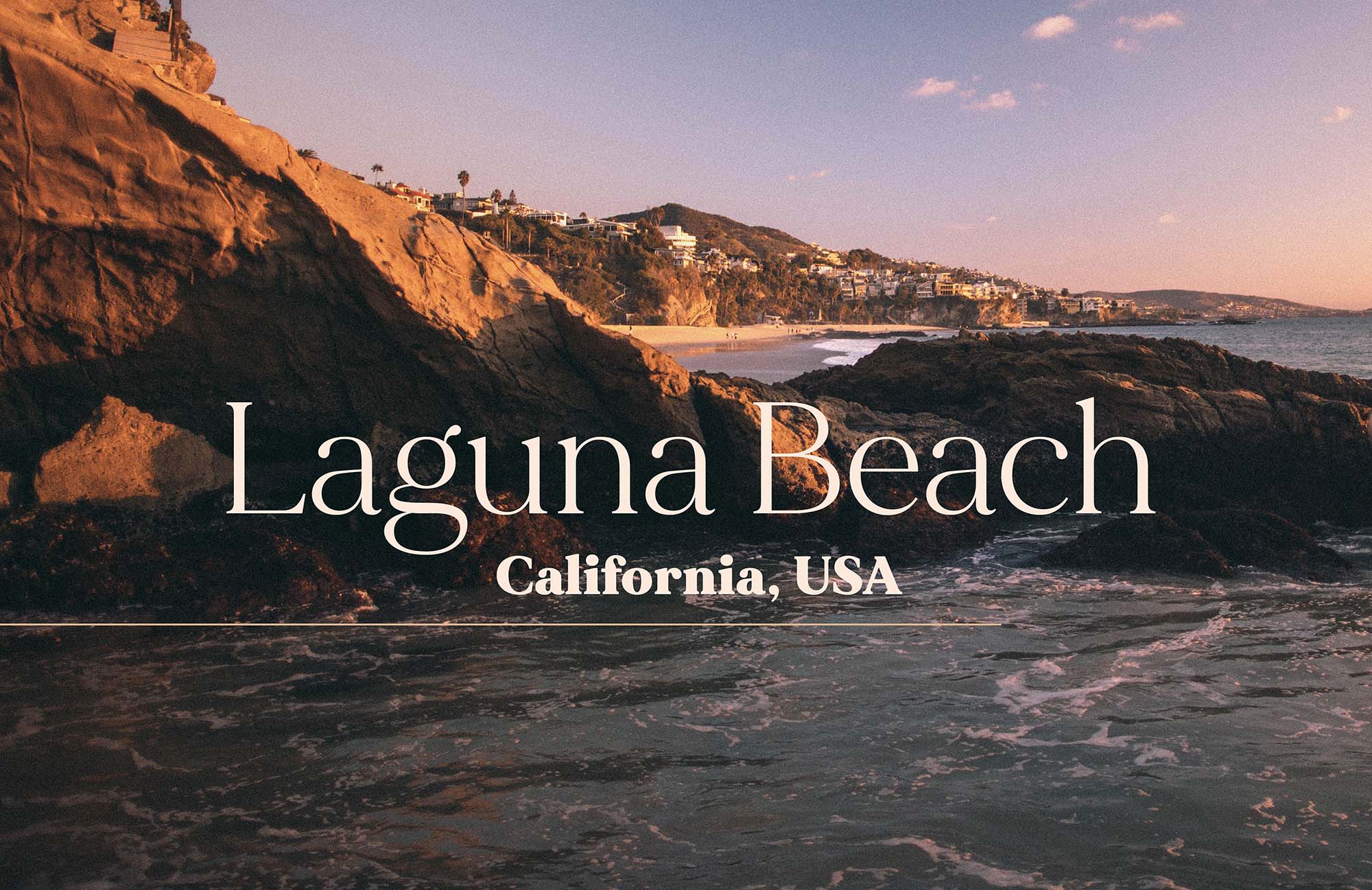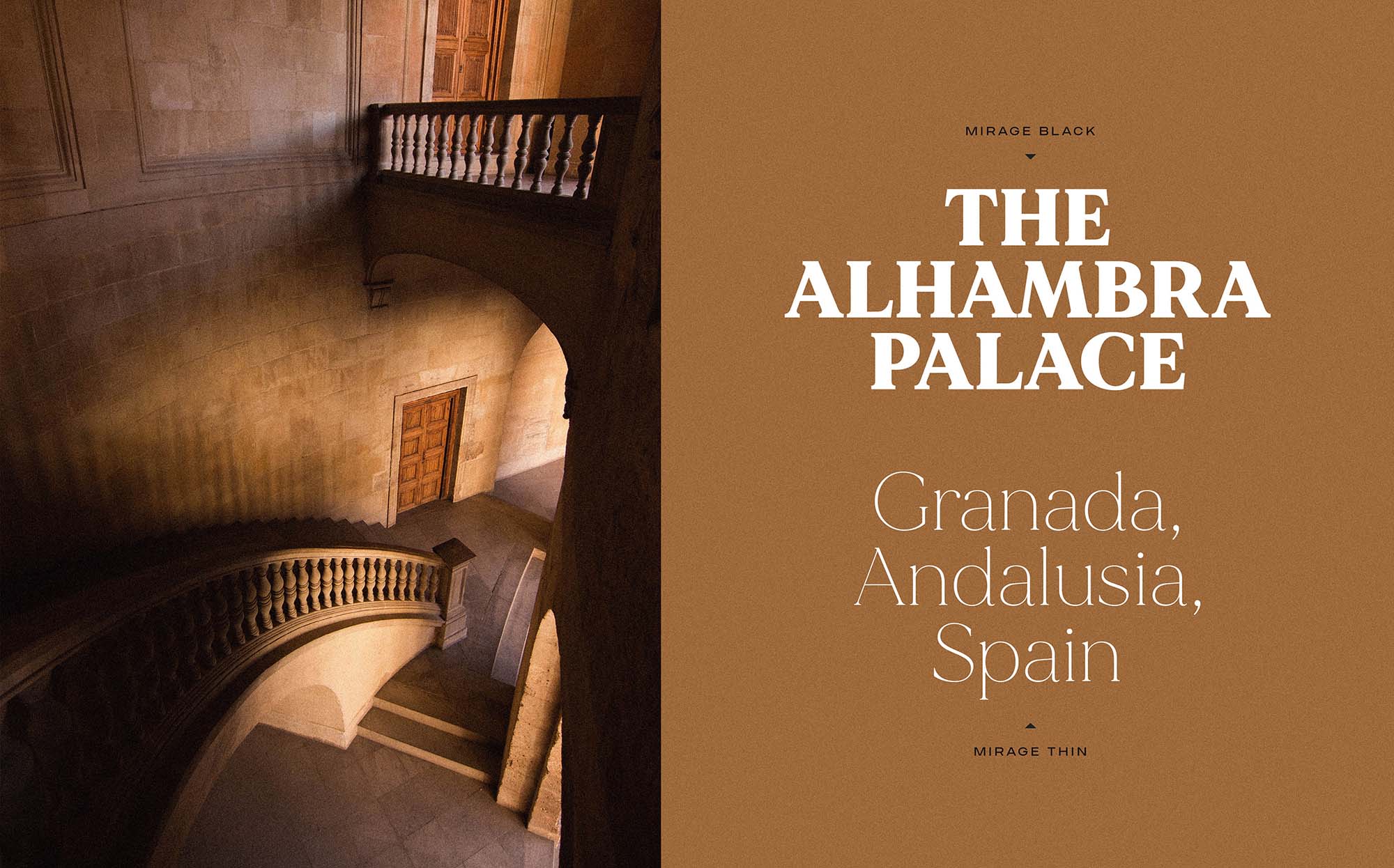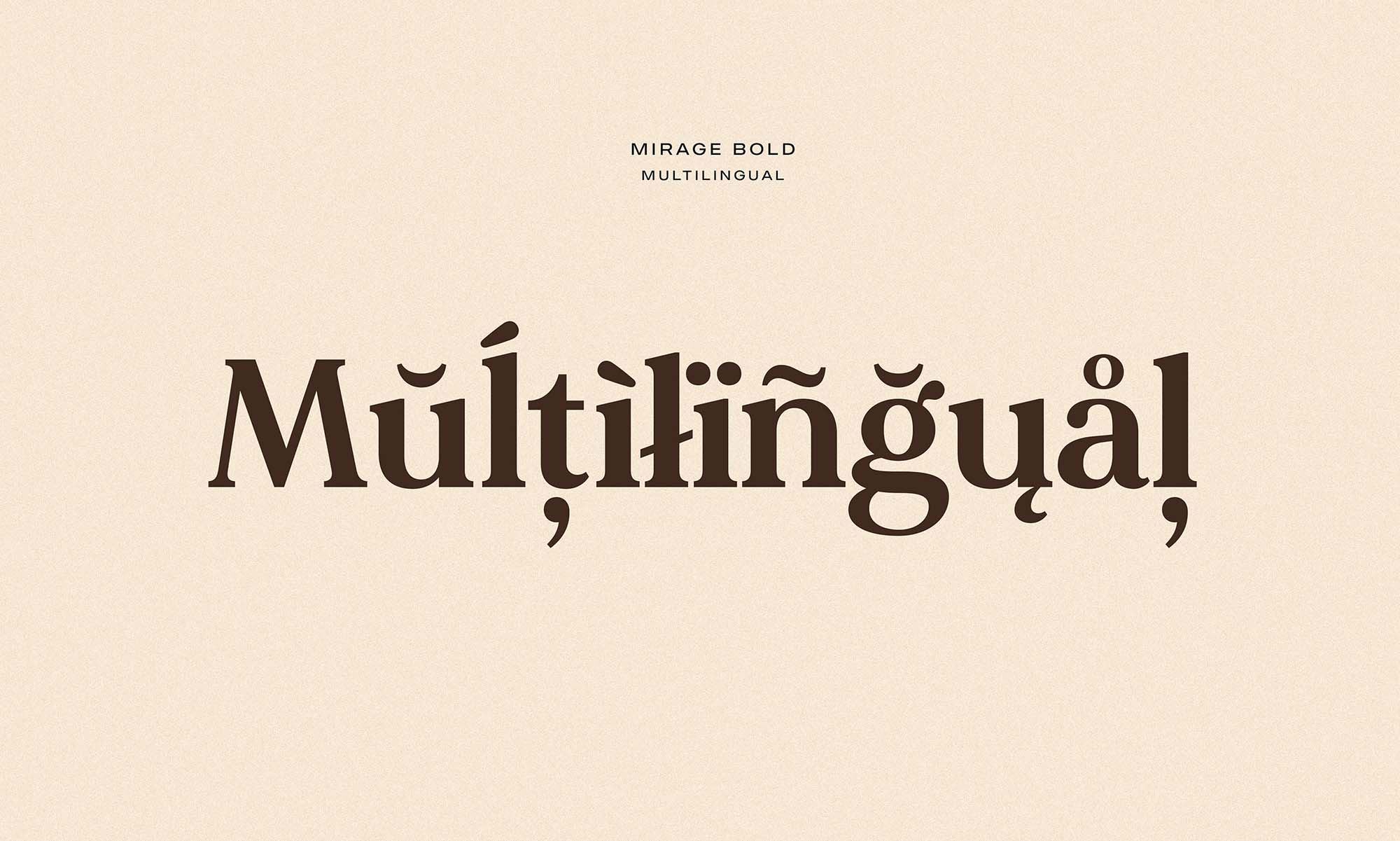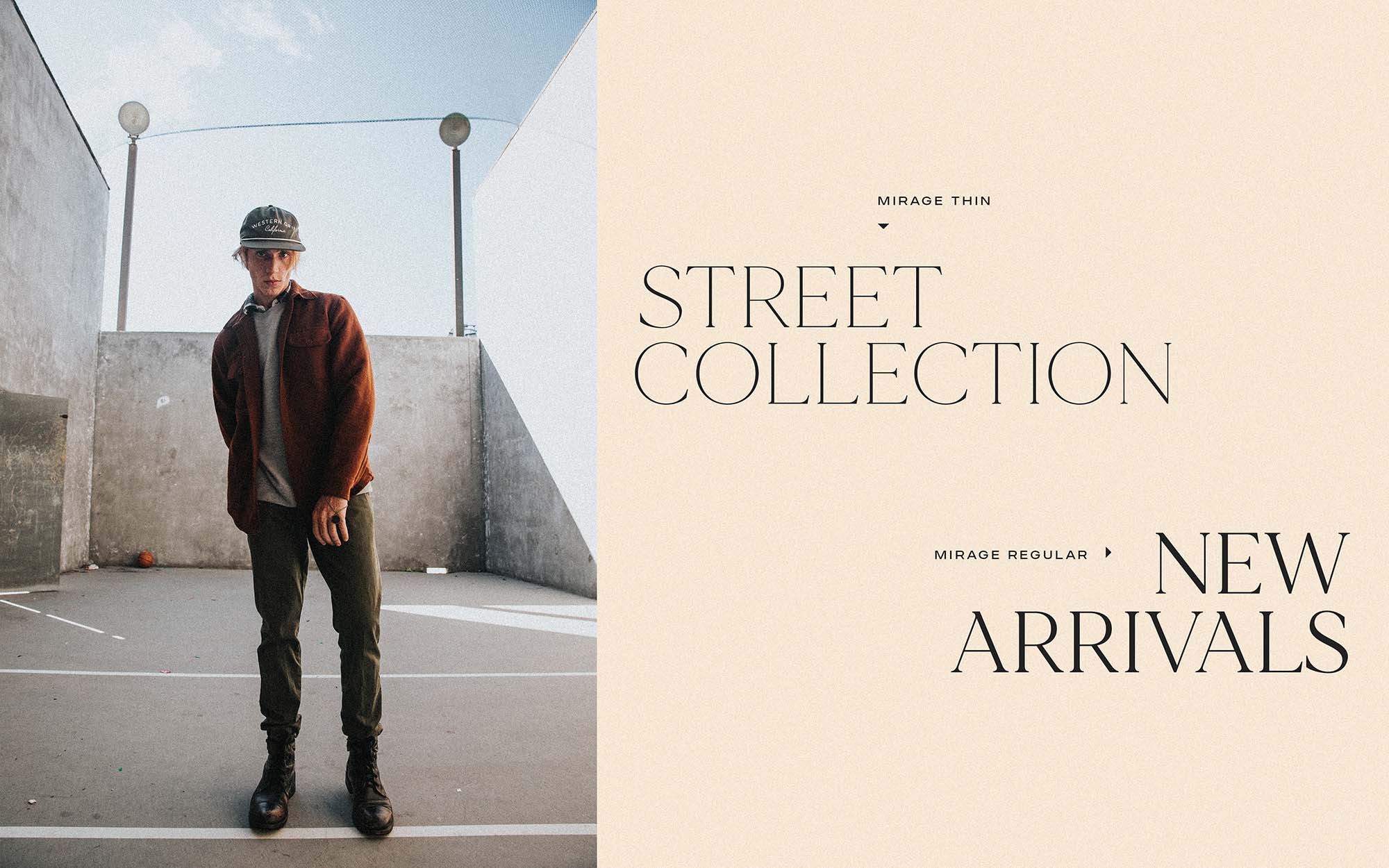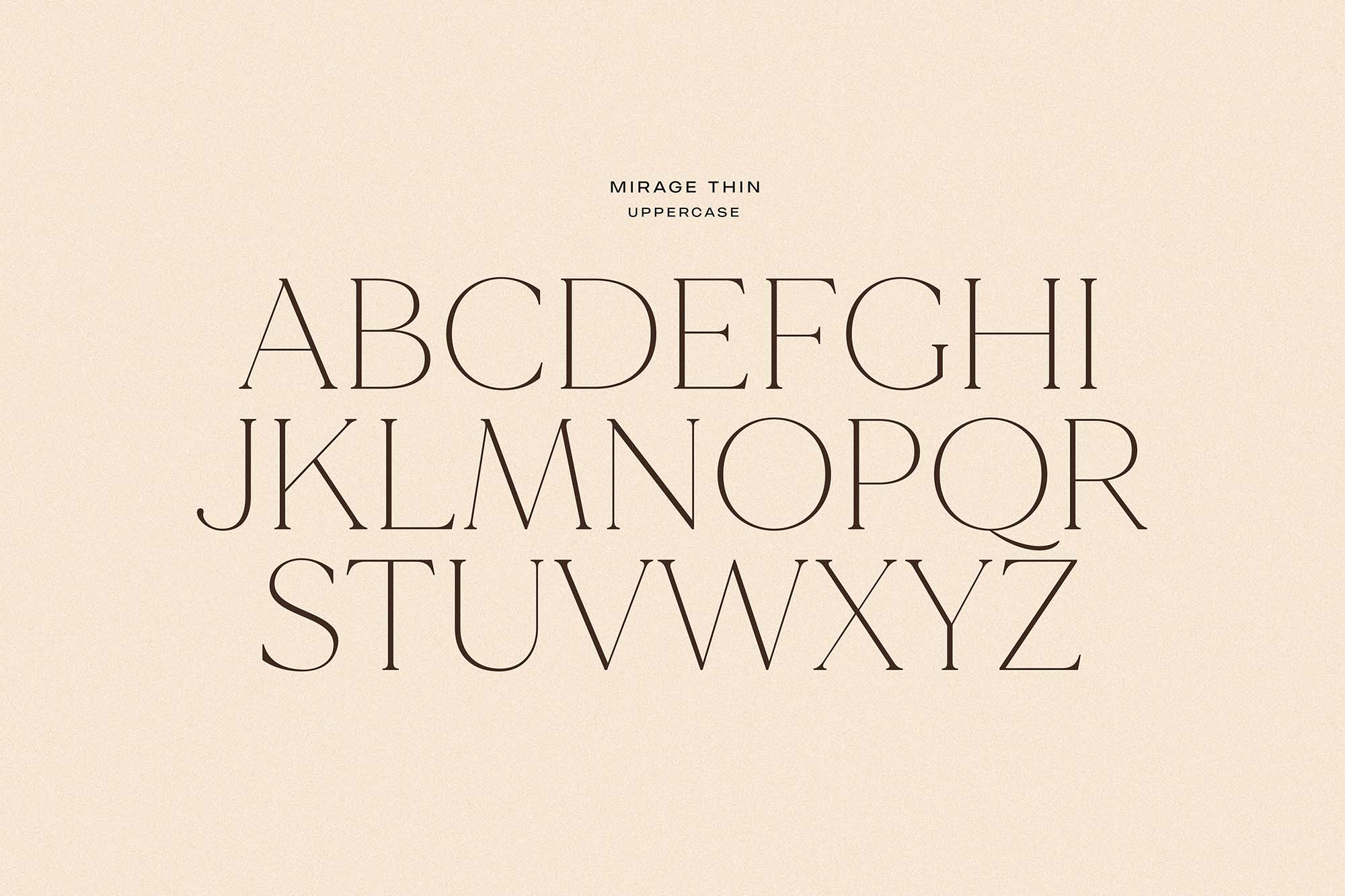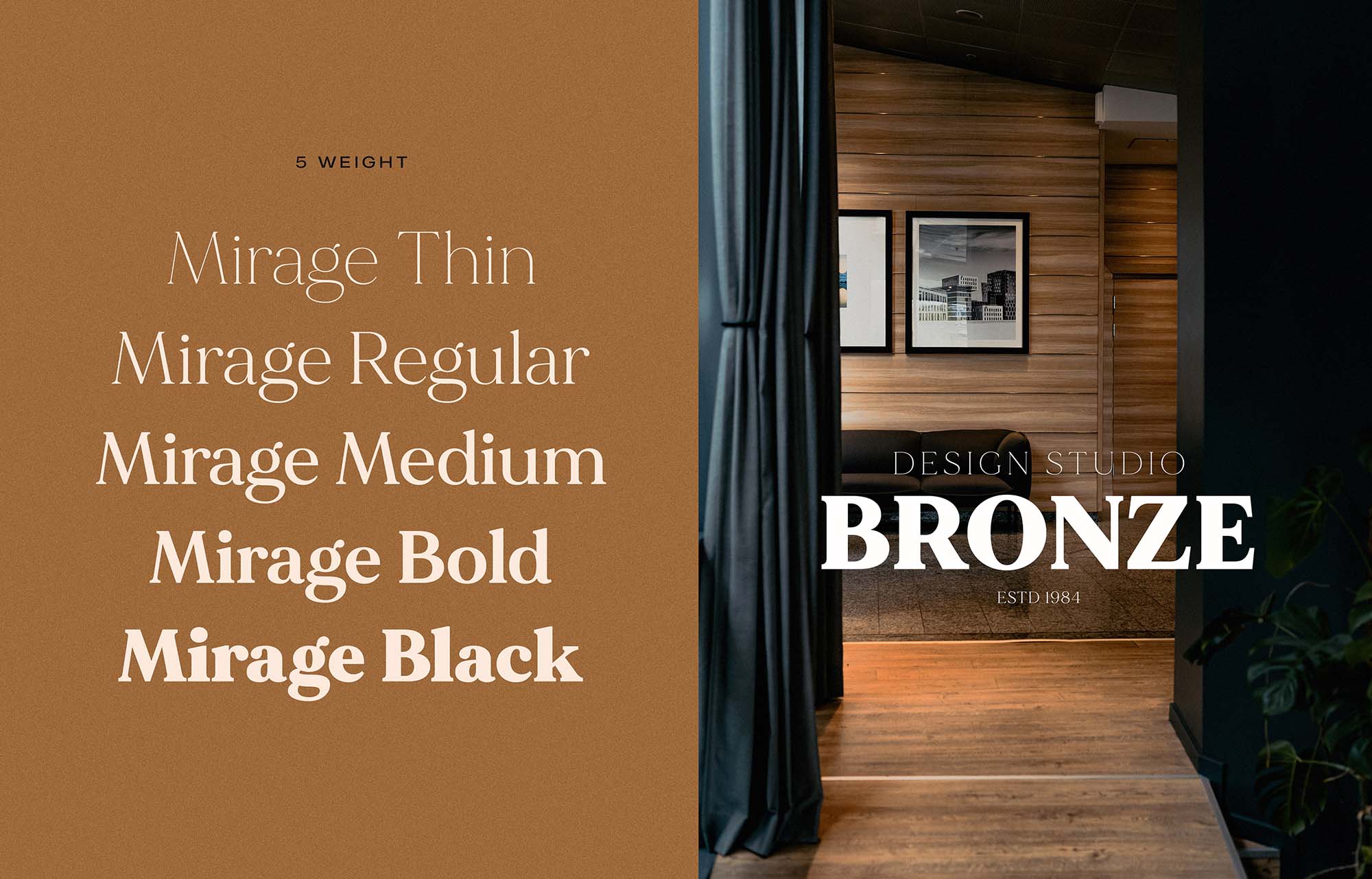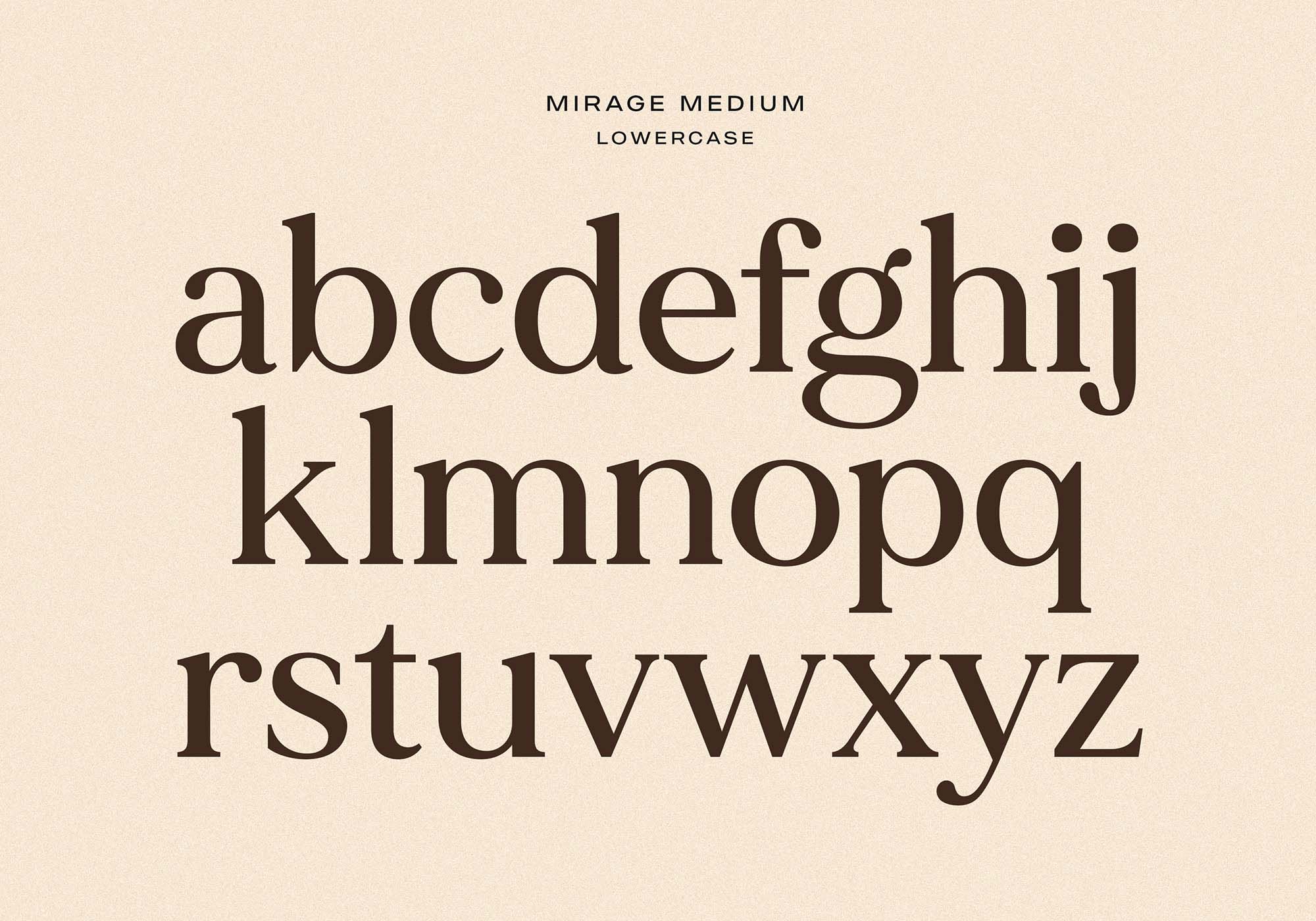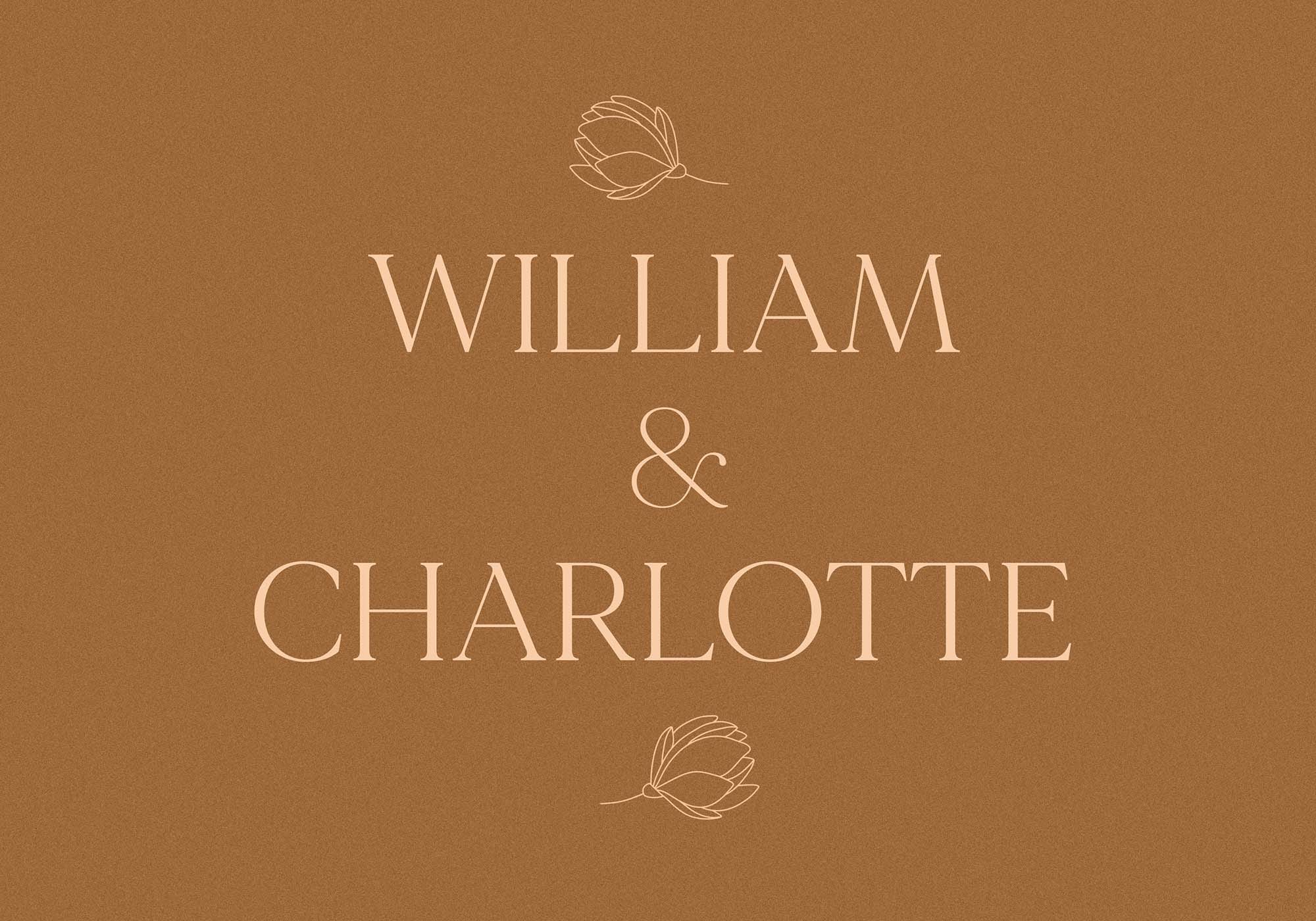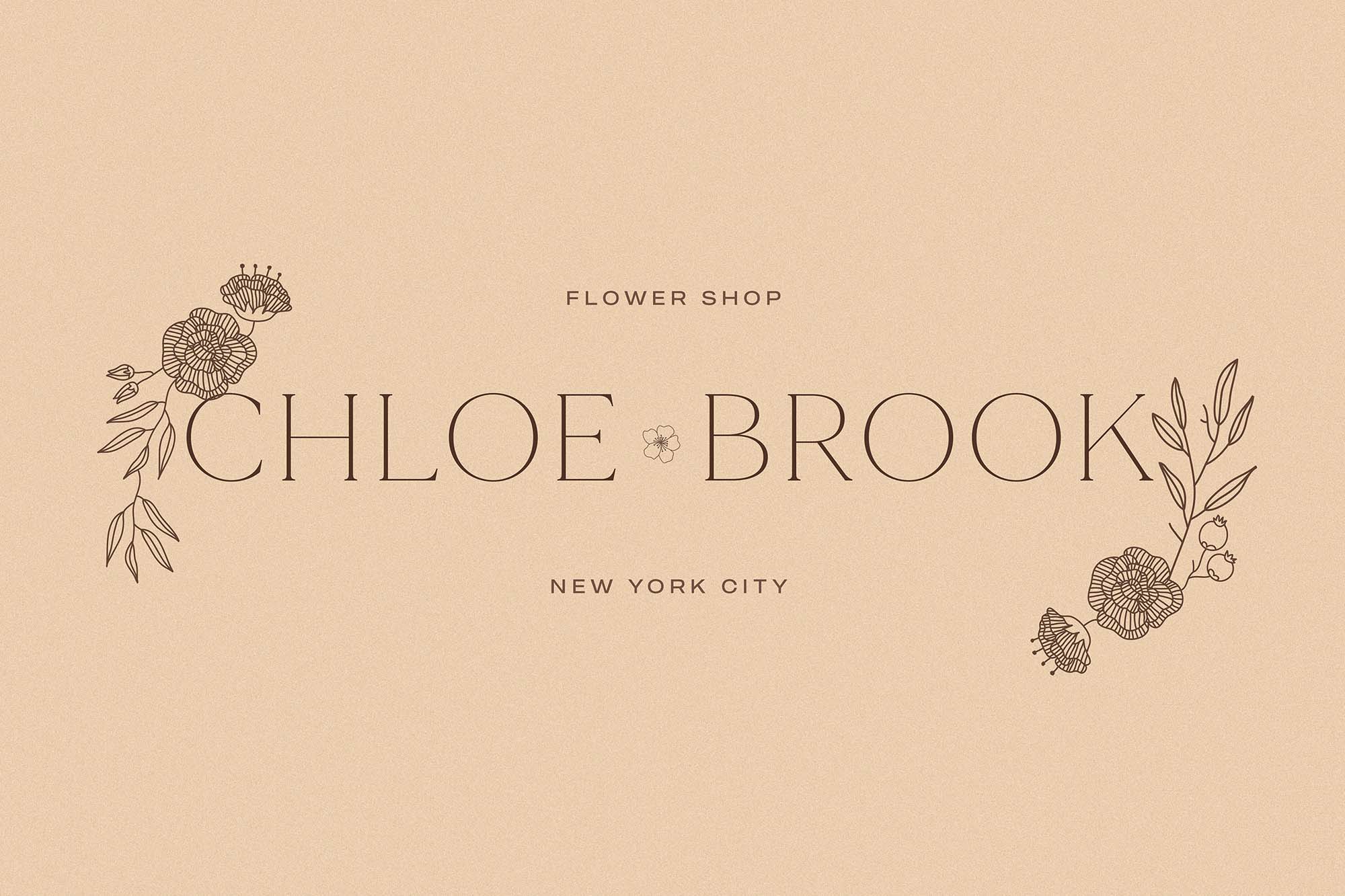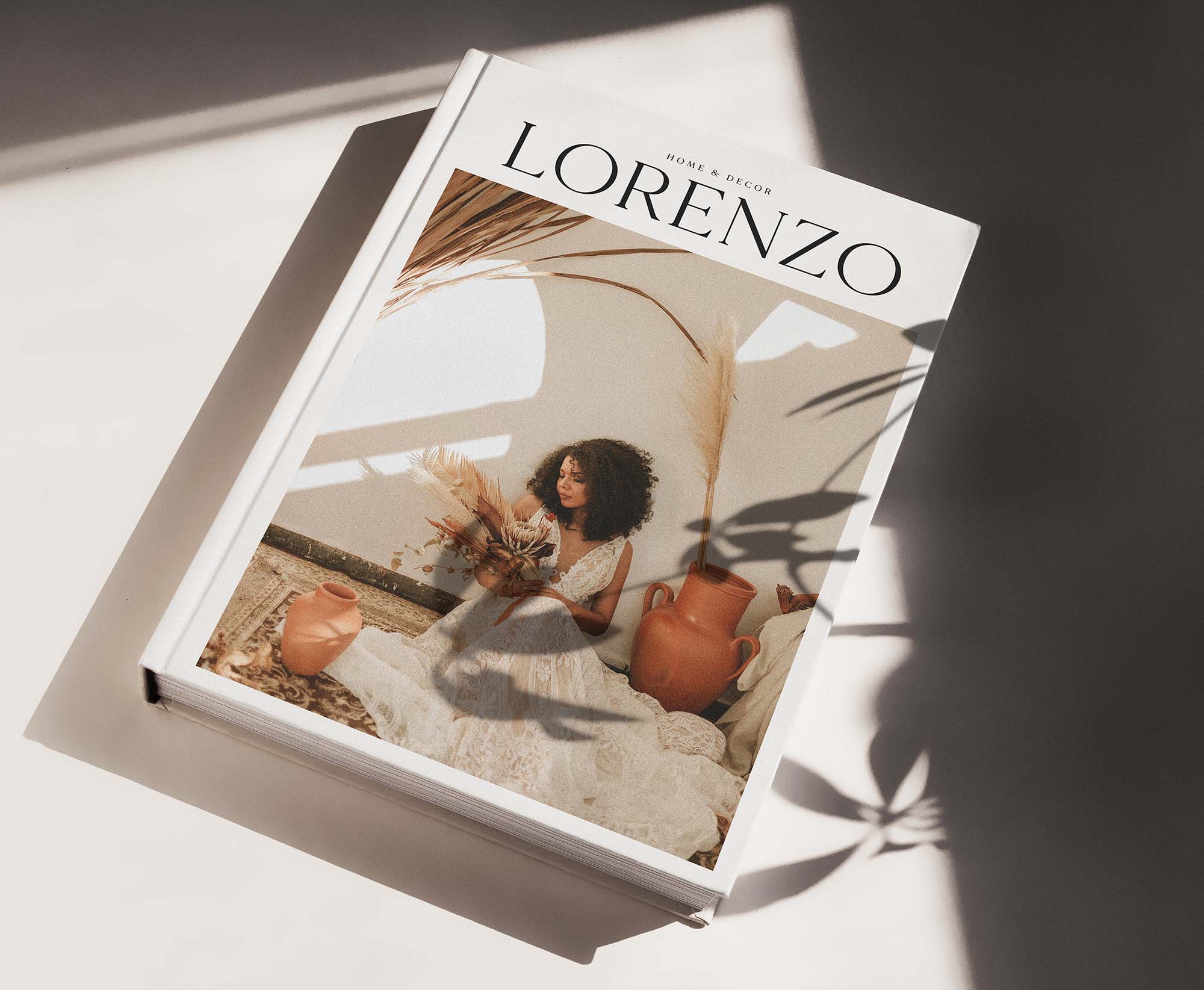
Made Mirage Serif Font
A mirage can be scientifically explained, but that does not take away from its wonder. Just like it, the fact that this is an easily obtainable tool does not take away from its brilliance. We’re very excited to share with you Made Mirage, a modern serif font family provided by Made Type.
Realize the elegance with every character as Mirage offers a selection of uppercase and lowercase letters, multi-lingual characters, numerals, punctuation marks, and symbols offered in 5 weights including Mirage thin, regular, medium, bold, and black. Multiple styles can be combined for different effects, and thanks to the variety offered by this tool, it can be used for branding and packaging designs for everything from high-end products to casual and everyday items. You can also use it for stationery projects, flyers, greeting and invitation cards, menus, online posts and blogs, etc.